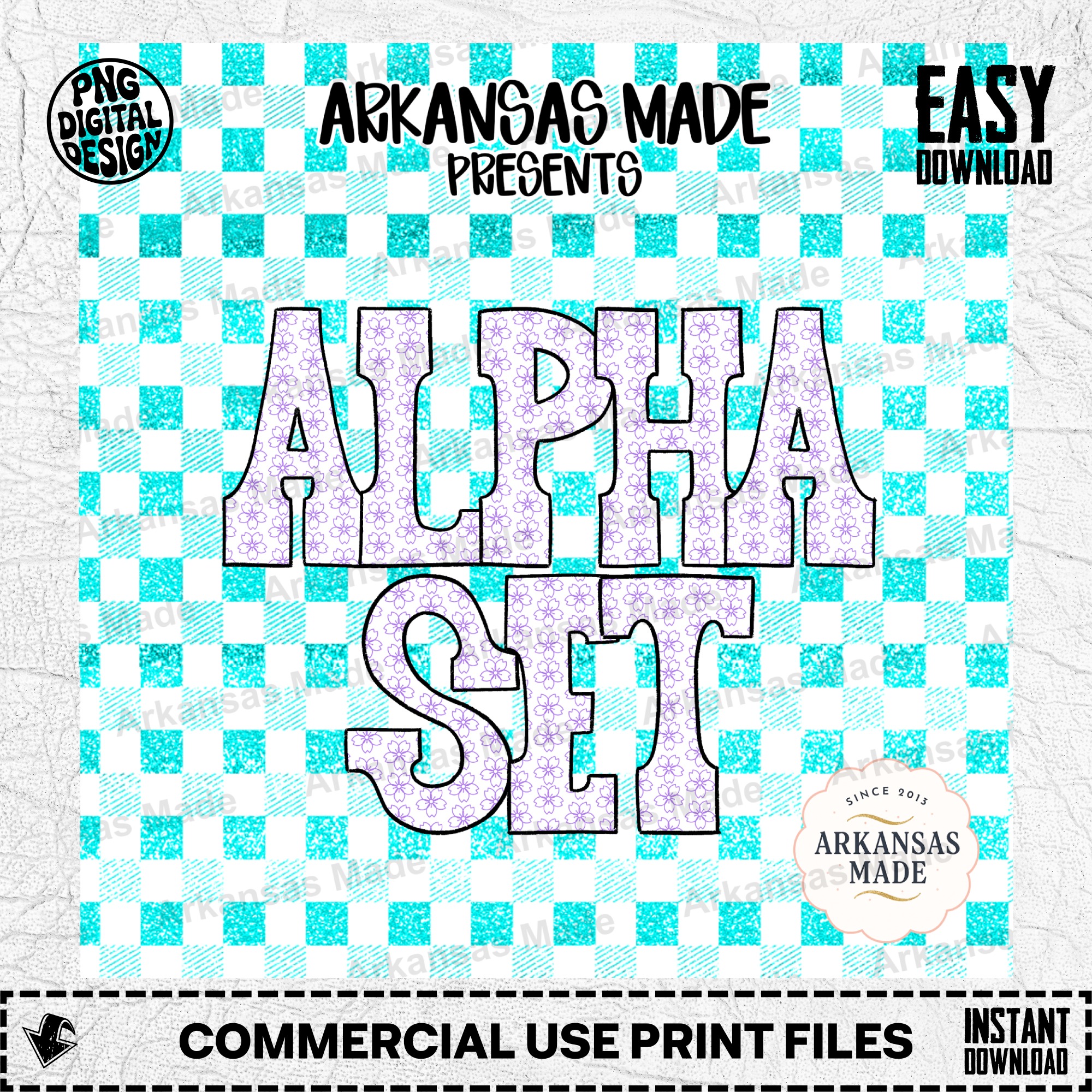
Floral Alpha PNG Set, Cute Purple Flower Alphabet Letters Digital Download, Spring Sublimation Font, Crafting Files
Elevate your projects with this beautiful Floral Alpha PNG Set, featuring cute purple flower alphabet letters perfect for digital crafts and sublimation. This versatile digital alphabet brings a touch of spring charm to any creation, from personalized gifts to DIY apparel. Ideal for crafters, small business owners, and teachers seeking unique design elements to create stunning monograms, custom signs, or delightful scrapbook pages with ease.